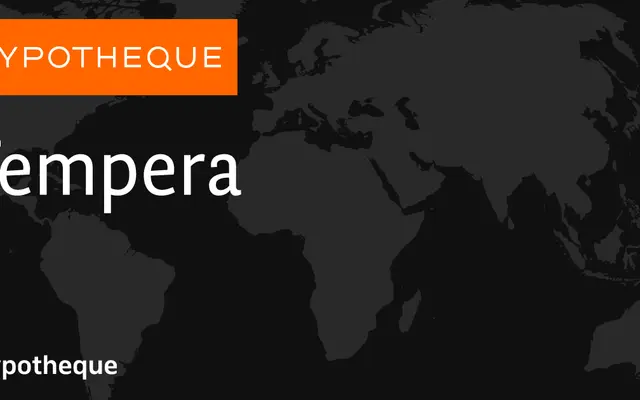
Tempera specimen from Typotheque
A text serif system from Typotheque built across three subfamilies, including optical variants and wide cuts suited to demanding book and editorial typography.
Structured around three subfamilies, Tempera covers a standard family with four weights and italics, a Biblio range with three optical variants (Book A, B and C) plus wide counterparts for different typographic conditions, and a variable font. The Biblio cuts suggest careful calibration for small text sizes, a priority more common in typeface systems designed for long-form printed work. The inclusion of wide variants alongside the standard proportions gives designers meaningful control over texture and line density.
Tempera is a text-oriented serif with multiple optical variants (Biblio) and wide cuts suggesting humanist serif construction aimed at book and editorial typography.